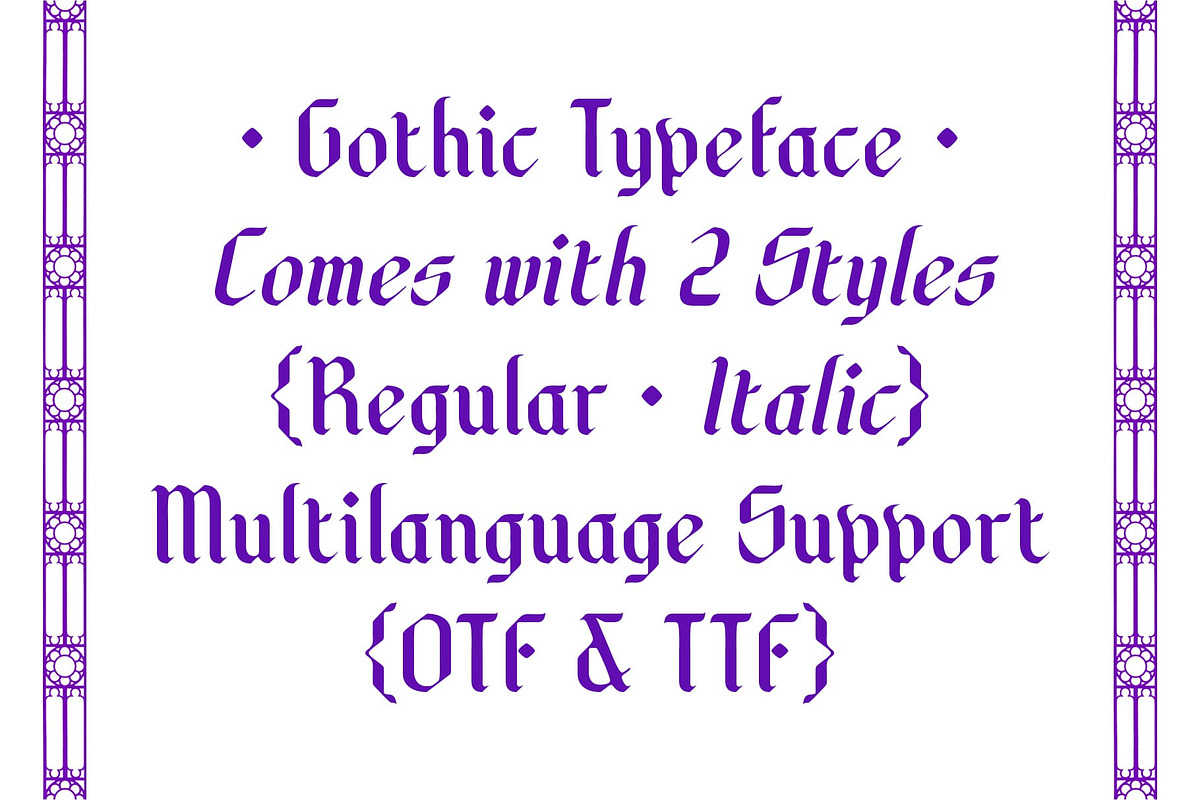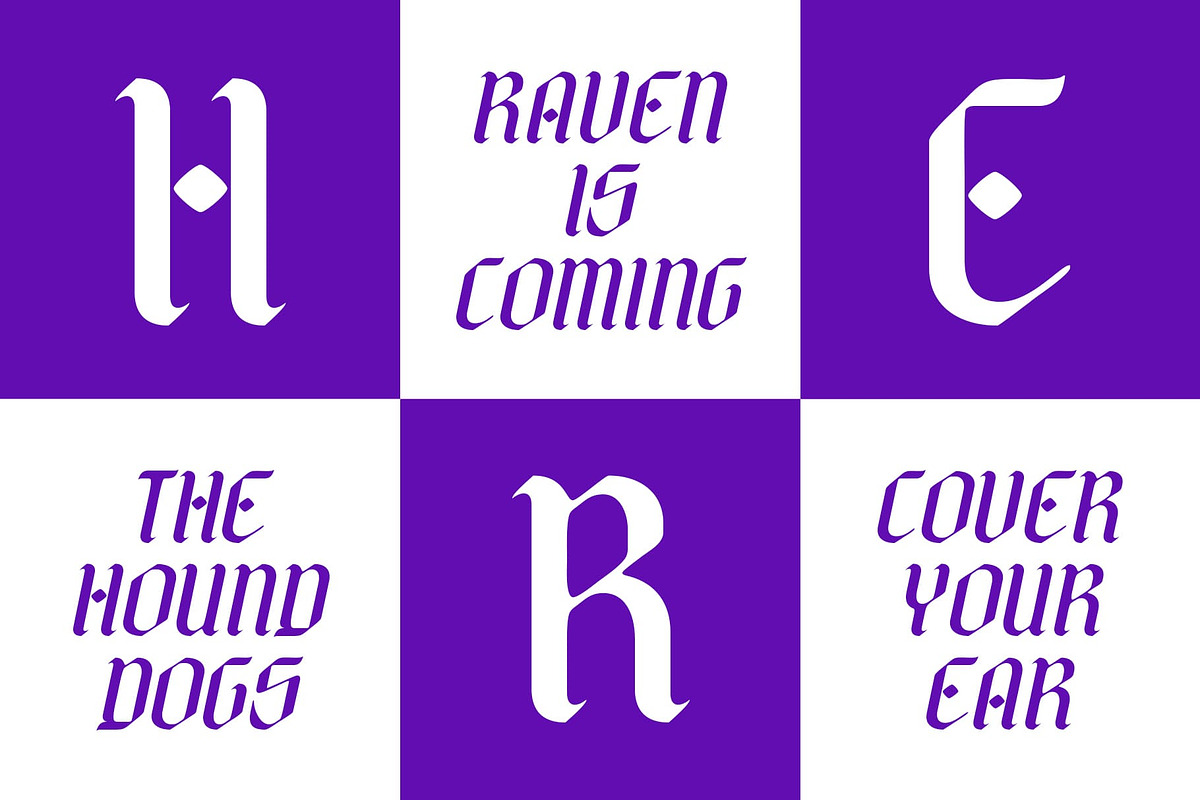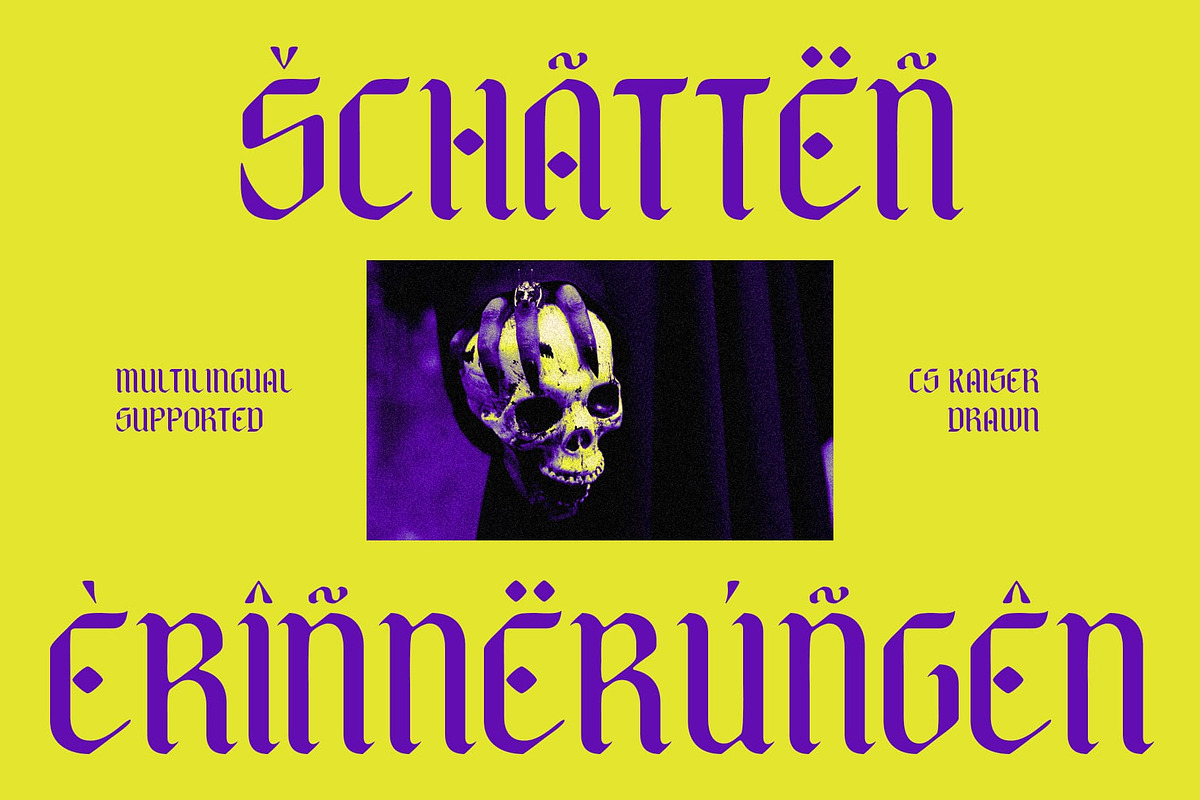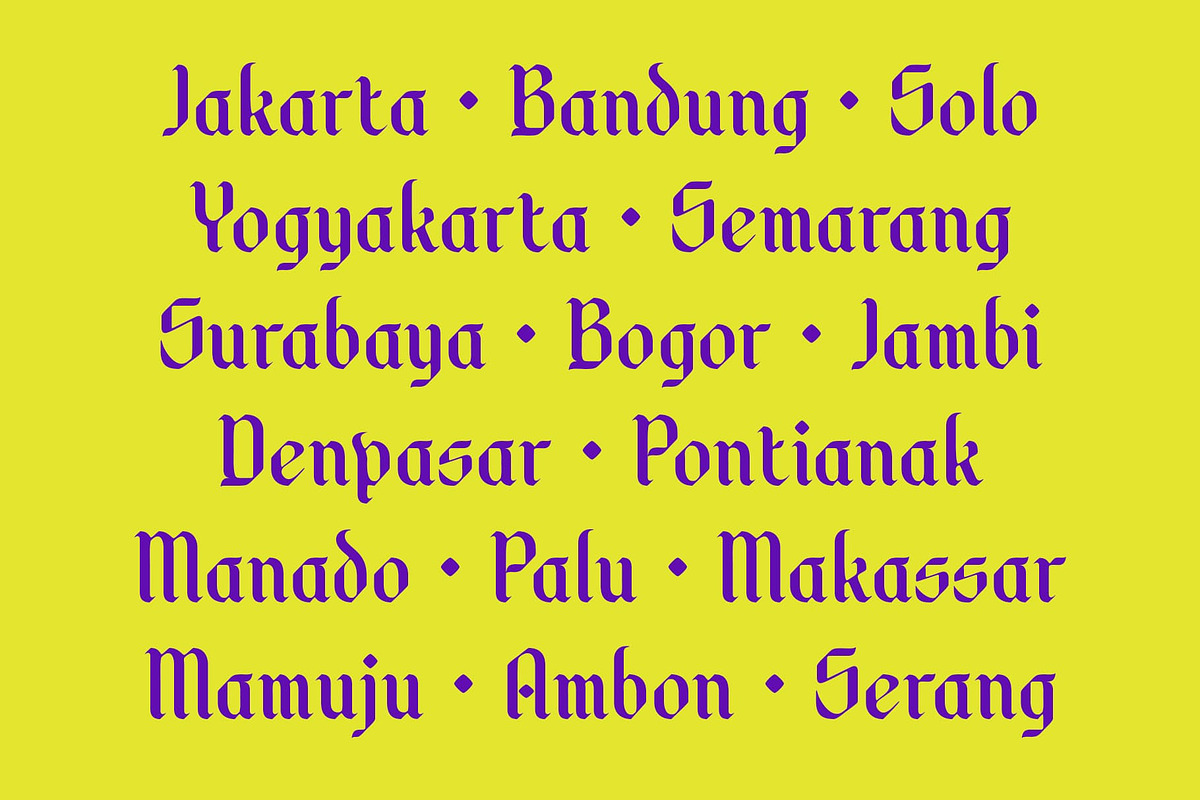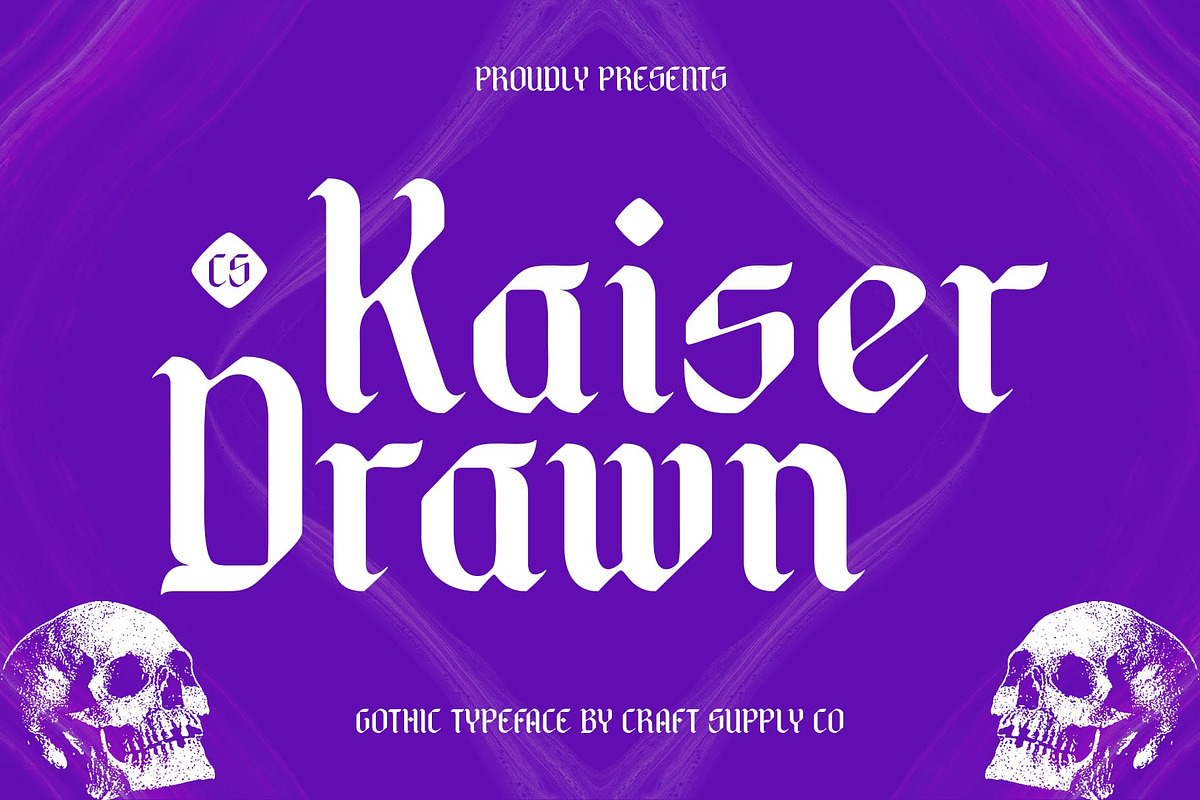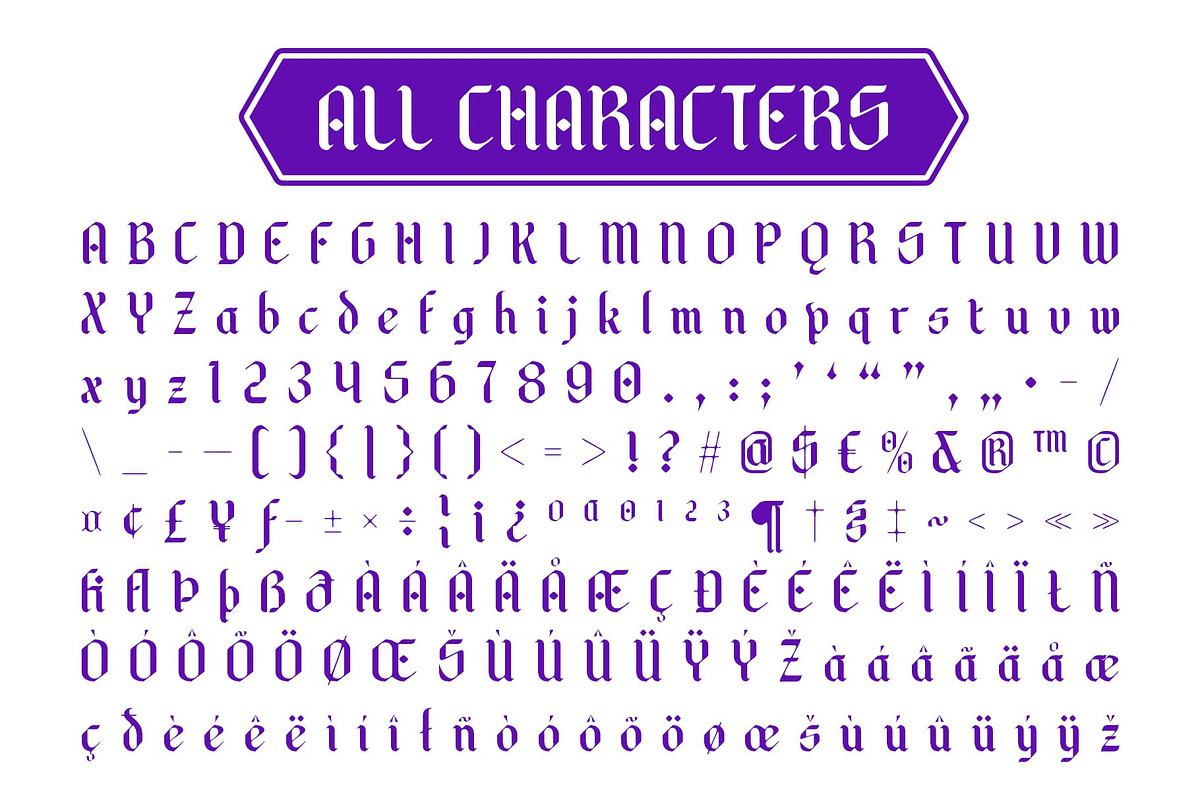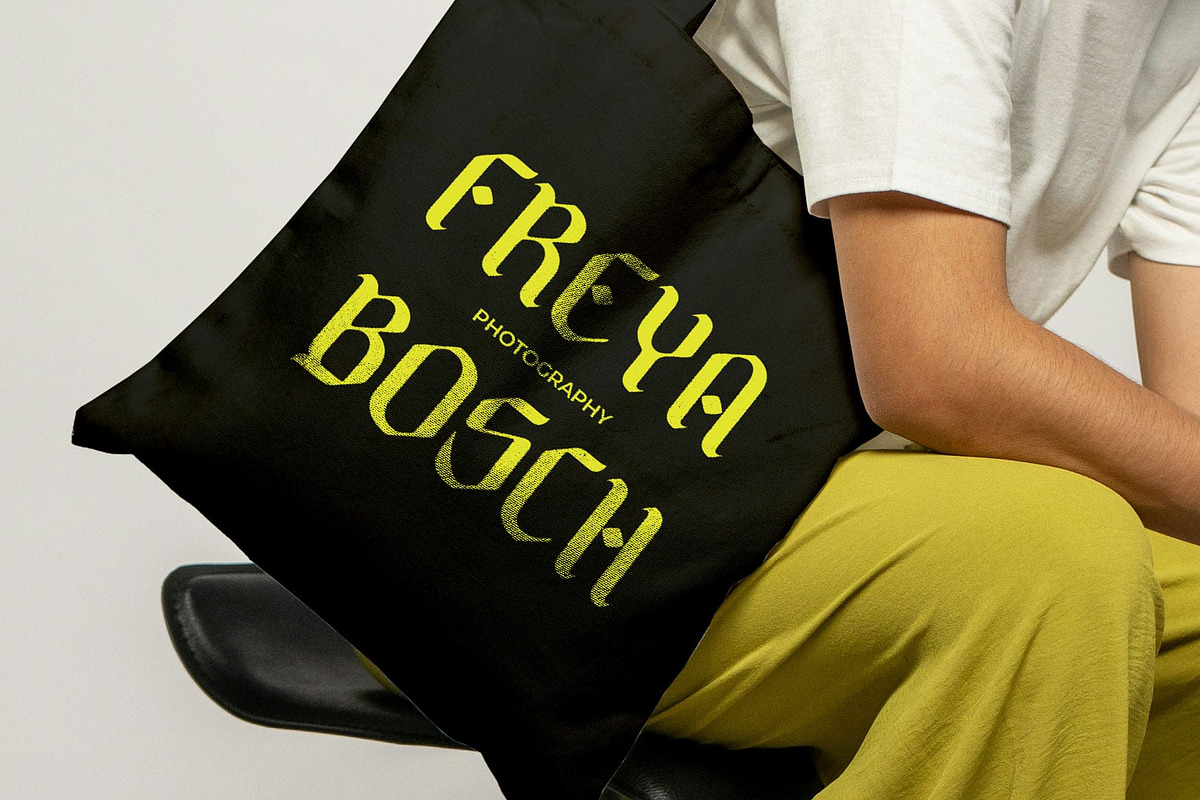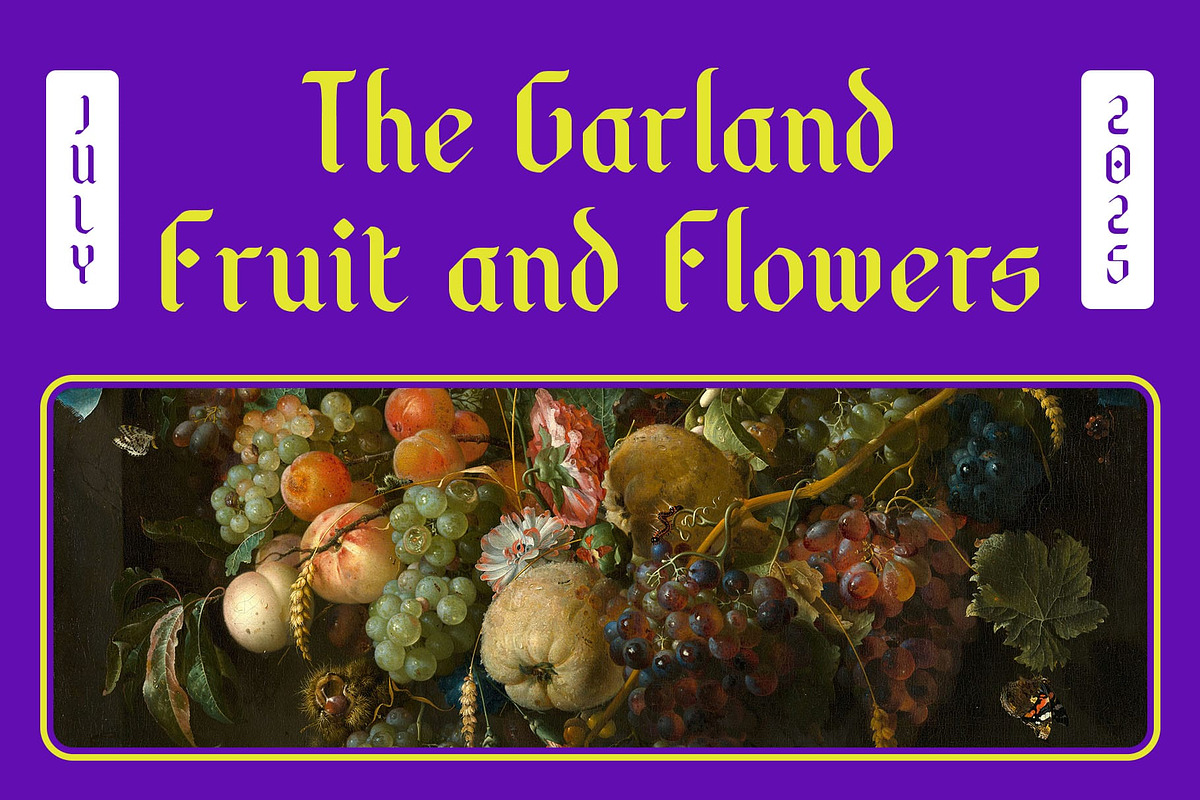
CS Kaiser Drawn
CS Kaiser Drawn – Gothic Drama with a Handcrafted Touch
Bold and Dramatic Gothic Letterforms CS Kaiser Drawn is a modern Gothic display font that combines bold, striking letterforms with intricate detailing, delivering an impactful and dramatic appearance. The letterforms exude a sense of power, evoking traditional Gothic aesthetics while pushing the boundaries of contemporary design. This bold and unique font makes a strong visual statement, perfect for any design looking to capture attention.
Hand-Drawn Effect for Intricate Artistic Detailing What makes this modern display font stand out is its hand-drawn effect, which adds an organic, handcrafted quality to the font. The intricate detailing of the letterforms introduces an additional layer of texture and artistic flair, creating a distinctive contrast with the bold, geometric structure. This effect softens the rigid lines typical of Gothic fonts, giving it a modern edge with a creative, personalized touch.
Ideal for Edgy Branding, Posters, and Striking Visual Designs This modern gothic font excels in projects that require a strong, edgy presence. It is ideal for branding, creative posters, album artwork, and any design that aims to break conventions and stand out from the crowd. The Gothic influences make it perfect for themes of power, rebellion, or dark aesthetics, while its hand-drawn texture adds a contemporary, artistic twist that makes it suitable for modern creative work.